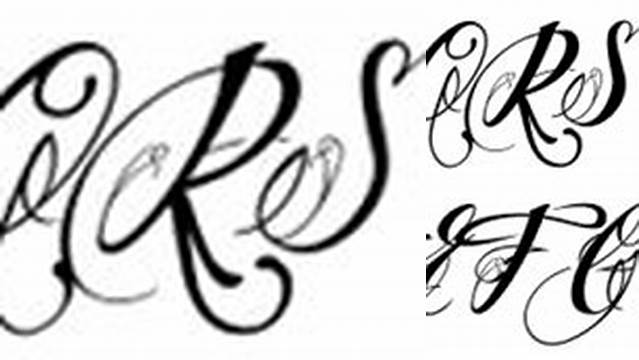
Welcome, tattoo enthusiasts and design aficionados! Today, we're diving headfirst into the captivating world of Chino Tattoo Slant Font: Free Download. Get ready to explore the ins and outs of this stylish typeface, its design possibilities, and, of course, where you can snag a free download! Whether you're a seasoned tattoo artist, a budding designer, or someone simply intrigued by the art of body ink, this article is packed with insights, inspiration, and practical tips to elevate your creative projects. Let's embark on this artistic journey together!
Unveiling the Allure of Chino Tattoo Slant Font
Chino Tattoo Slant Font is more than just a collection of letters; it's a statement. It's a fusion of classic elegance and modern edge, making it a popular choice for tattoos that demand attention and personality. The slant, a subtle tilt in the font, adds a dynamic feel, giving the text a sense of movement and flow. It's the kind of font that whispers confidence and individuality. The appeal lies in its versatility. It seamlessly blends with various tattoo styles, from minimalist designs to elaborate artworks. Its readability ensures the message is clear, while its distinct character makes it unforgettable. What makes Chino Tattoo Slant Font truly stand out is its balance of sophistication and boldness. It’s a font that can tell a story, convey emotions, and add a unique touch to any tattoo. It's ideal for names, quotes, or any text that needs to be both legible and visually striking. With its unique slant, the font creates an immediate visual impact, capturing the viewer’s eye and setting the tone for the entire design. The artistic possibilities with this font are limitless, making it a favorite for those looking to express their individuality through body art. For those who are looking for a font that can be both expressive and elegant, the Chino Tattoo Slant Font is a go-to choice.
Exploring the Distinctive Characteristics of Chino Tattoo Slant Font
Chino Tattoo Slant Font distinguishes itself through several key characteristics, setting it apart in the vast landscape of typefaces. The most prominent feature is, of course, the slant. This subtle yet powerful detail adds a dynamic quality, giving the font a sense of movement and flow. It prevents the text from appearing static and adds an element of visual interest that immediately draws the eye. The font often features a balanced weight distribution, ensuring both legibility and visual appeal. The characters are typically designed with careful attention to detail, striking a perfect equilibrium between boldness and elegance. The curves and angles of the letters are crafted to be aesthetically pleasing, enhancing the overall impact of the design. This balance is what makes it suitable for a wide variety of tattoo styles. In addition to its slant, this font typically has a unique style that blends traditional aesthetics with modern design sensibilities. The font often incorporates classic elements, such as serifs or elegant letterforms, while still embracing contemporary design trends. This fusion of old and new gives the font a timeless quality that is both familiar and fresh. Each character is carefully designed to contribute to the overall harmony of the text. The kerning, or spacing between letters, is also optimized, ensuring smooth readability even in complex designs. This attention to detail is what allows the font to remain visually appealing, and it also ensures that the message of the tattoo is effectively conveyed to the viewer. This makes it ideal for displaying messages or important names or dates in tattoos.
The Versatility of Chino Tattoo Slant Font in Tattoo Designs
Chino Tattoo Slant Font offers unparalleled versatility in the world of tattoo designs. Its adaptability makes it a perfect fit for a wide range of styles and designs. For minimalist tattoos, the font’s clean lines and subtle slant create a sophisticated and refined aesthetic. The slant adds a touch of visual interest without overwhelming the design. In traditional tattoos, the font can be used to add a modern twist to classic motifs. The slant can be combined with bold outlines and vibrant colors to create eye-catching designs. For script tattoos, the font’s flowing curves and elegant forms allow for the creation of intricate and personalized messages. Names, quotes, and dates can be beautifully rendered using this font, making the tattoo meaningful. The font's legibility and adaptability make it suitable for various body placements. Whether it’s on the wrist, the back, or anywhere else, the font’s design ensures that the text remains readable and visually appealing. Artists can experiment with different sizes, colors, and placements to enhance the effect of the text. The font can be paired with other design elements, such as images and patterns, to create complex and visually stunning pieces. The font’s versatility allows it to be used in combination with other design elements, creating a harmonious and unique look. This makes it ideal for designing tattoos that blend personal style with artistic expression. Chino Tattoo Slant Font allows individuals to showcase their individuality and create meaningful body art. It is a versatile and attractive choice for anyone looking to express themselves through tattoos.
Designing Your Tattoo: Tips and Tricks with Chino Tattoo Slant Font
Designing a tattoo using Chino Tattoo Slant Font is an exciting process that demands careful planning and a keen eye for detail. To begin, consider the message you want to convey. This font is perfect for names, quotes, or any text that carries special meaning. Once you have the text, experiment with different sizes and placements. The font looks great in both small and large sizes. Think about where the tattoo will be placed on your body. Consider the shape and size of the body part to ensure the text fits seamlessly. The angle and direction of the slant can be modified. Experimenting with the slant can add an extra layer of visual interest and personalization to your design. Then, try out different color combinations and styles. The font can be used in a variety of colors, from classic black to bright and bold hues. The color choice can significantly impact the overall impact of the tattoo. You can also add additional elements to enhance the design. Combining the font with other design elements, such as images and patterns, can create a more complex and visually appealing piece. Before getting the tattoo permanently inked, always create a mockup or a digital rendering of your design. This step is very important to ensure that the final product meets your expectations. By following these tips and tricks, you can ensure that your tattoo, using Chino Tattoo Slant Font, is a personalized and meaningful work of art.
Exploring Different Tattoo Styles That Complement Chino Tattoo Slant Font
Chino Tattoo Slant Font seamlessly integrates into several tattoo styles, enhancing their aesthetic appeal. For a modern and minimalist design, the font’s clean lines and subtle slant make it an ideal choice. It adds a touch of sophistication without overpowering the design. In traditional tattoo styles, the font provides a contemporary twist to classic motifs. The slant can be combined with bold outlines and vibrant colors to create an eye-catching design. For script tattoos, the font’s flowing curves and elegant forms allow for the creation of intricate and personalized messages. Names, quotes, and dates can be beautifully rendered using this font, creating a meaningful tattoo. The font complements a range of styles, providing endless options for customization. The font’s versatility allows it to be used in combination with other design elements, creating a harmonious and unique look. This makes it ideal for designing tattoos that blend personal style with artistic expression. The font can be used to express creativity and individuality. Choosing the right tattoo style can enhance the overall impact of the tattoo. By carefully selecting the right style, you can create a tattoo that reflects your personal style and values. The Chino Tattoo Slant Font provides endless options for customization.
Using Chino Tattoo Slant Font for Meaningful Quotes and Phrases
Chino Tattoo Slant Font is especially well-suited for conveying meaningful quotes and phrases. The font's elegance and readability ensure that the message is both visible and artistically presented. It can be used to display a variety of quotes, from inspirational sayings to personal affirmations. The font's slant adds a dynamic element to the text, adding visual interest and making the words stand out. When selecting a quote, consider its personal significance and the impact you want it to have. The font's style can enhance the quote’s meaning. Choose the words that are both relevant and evocative. The font can enhance the emotional impact of the tattoo. Experiment with different sizes and placements to create a unique and personalized design. The font's adaptability ensures that it looks great in a variety of formats. The Chino Tattoo Slant Font allows individuals to carry these words as a continuous source of motivation and inspiration. Whether the quote is a source of strength, a memory of loved ones, or a statement of personal beliefs, this font makes it a beautiful and meaningful part of your body art. Using this font is a beautiful way to carry meaningful messages with you always.
The Importance of Font Legibility in Tattoo Design
Font legibility is a crucial factor in tattoo design. Legible tattoos are important so that the message can be easily understood and admired. When choosing a font, make sure the letters are clear and well-defined. This helps to ensure that the words remain readable over time. The slant of the Chino Tattoo Slant Font can make the text more visually appealing, but also increases readability, ensuring that the message is easy to understand. The font's unique design allows for the creation of intricate and personalized messages. In addition to the font choice, consider the size and placement of the tattoo. The font’s size should be appropriate for the text and body placement. Too small and the letters will be difficult to read, too large, and it can be overwhelming. Place the tattoo on a flat surface. This helps to keep the text from distorting, while the skin stretches. The clarity of a font affects how your design looks over time. Choosing a legible font ensures that your tattoo maintains its meaning and impact for years to come. The Chino Tattoo Slant Font ensures that the message is clear and artistically presented. The careful selection of a font can make a design more appealing. Legibility is essential in tattoo designs.
Avoiding Common Mistakes When Getting a Chino Tattoo Slant Font Tattoo
Avoiding common mistakes when getting a Chino Tattoo Slant Font tattoo will help ensure a beautiful outcome. One mistake is choosing a font that's hard to read. Make sure the design is readable. Another mistake is rushing the decision. Always take the time to consider your design. Another mistake is failing to prepare your skin. Properly preparing your skin is important. Inadequate aftercare can also be a problem. Following the aftercare instructions is important. Always select a skilled tattoo artist. By avoiding common mistakes, you can get the best results. You can create a design that you love. The Chino Tattoo Slant Font helps you to create a design that you will love.